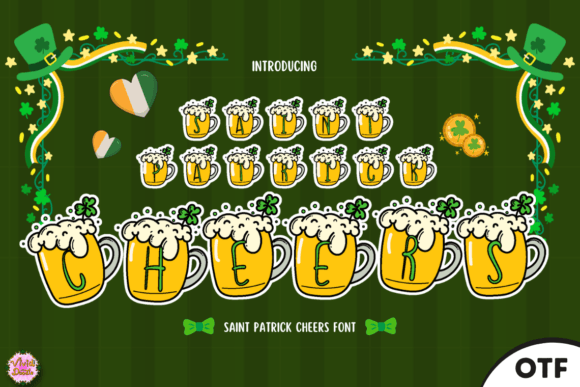
Saint Patrick Cheers Font: The Ultimate Festive Typeface for St. Patrick’s Day Celebrations
As the emerald green hills of Ireland beckon, and the world prepares to don their best St. Patrick’s Day attire, the quest for the perfect festive font begins. Look no further than the Saint Patrick Cheers font, a spirited typeface designed to infuse your holiday designs, cards, and creative projects with the luck and cheer of Ireland’s favorite celebration.
What Makes Saint Patrick Cheers Font So Special?
- Festive and Spirited Design: Each letter in the Saint Patrick Cheers font is meticulously crafted to embody the joy and festivity of St. Patrick’s Day, making it the perfect choice for creating a celebratory atmosphere.
- Lucky Aesthetic: The font’s lively design seamlessly blends with a touch of luck, ensuring that every project stands out with a visually captivating and festively inspired experience.
- Versatility: Whether you’re designing party invitations, festive decorations, or any project that requires a dash of Irish cheer, Saint Patrick Cheers font is the ideal choice.
Creative Ways to Use Saint Patrick Cheers Font
Saint Patrick Cheers font is more than just a typeface; it’s a versatile design element that can elevate a wide range of creative projects. Here are some ideas to get you started:
- St. Patrick’s Day Invitations: Create eye-catching party invitations that set the tone for a fun-filled celebration.
- Festive Decorations: Use the font to design banners, signs, and other decorative elements that capture the spirit of St. Patrick’s Day.
- Social Media Graphics: Add a touch of Irish cheer to your social media posts and stories with Saint Patrick Cheers font.
- Cards and Stationery: Design personalized cards and stationery that showcase the font’s festive and spirited design.
The Benefits of Using Saint Patrick Cheers Font
So, why choose Saint Patrick Cheers font for your St. Patrick’s Day designs? Here are just a few benefits:
- Easy to Read and Recognize: The font’s clear and legible design ensures that your message is conveyed with ease.
- Customizable: Experiment with different colors, sizes, and styles to make the font your own.
- Unique and Memorable: The Saint Patrick Cheers font’s distinctive design ensures that your projects stand out from the crowd.
Design Tips for Using Saint Patrick Cheers Font
To get the most out of Saint Patrick Cheers font, here are some design tips to keep in mind:
- Pair with Complementary Fonts: Combine the font with complementary typefaces to create visual interest and hierarchy.
- Experiment with Colors: Try out different color schemes to find the perfect match for your design.
- Play with Size and Style: Vary the font size and style to add emphasis and create a dynamic design.
Finding Inspiration with Saint Patrick Cheers Font
Sometimes, all it takes is a little inspiration to spark creativity. Here are some ideas to get you started:
- Irish Heritage: Draw inspiration from Ireland’s rich heritage, from shamrocks to leprechauns.
- Nature: Take cues from the natural world, with a color palette that reflects the emerald green hills of Ireland.
- Festive Atmosphere: Capture the energy and excitement of St. Patrick’s Day celebrations.
In conclusion, the Saint Patrick Cheers font is the perfect choice for anyone looking to add a touch of Irish cheer to their St. Patrick’s Day designs. With its festive and spirited design, versatility, and ease of use, this font is sure to elevate your creative projects and leave a lasting impression.